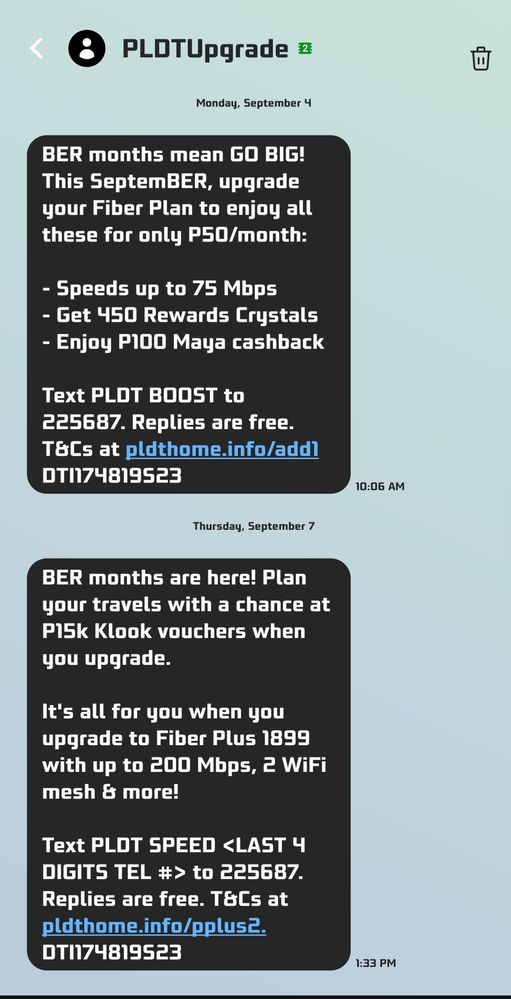
Galaxy Games Play Font
Cute font! Thanks for sharing this, butete. I'm sure your fellow Members would like to try it out as well! 🤗
no way i had this on my 2015 galaxy a